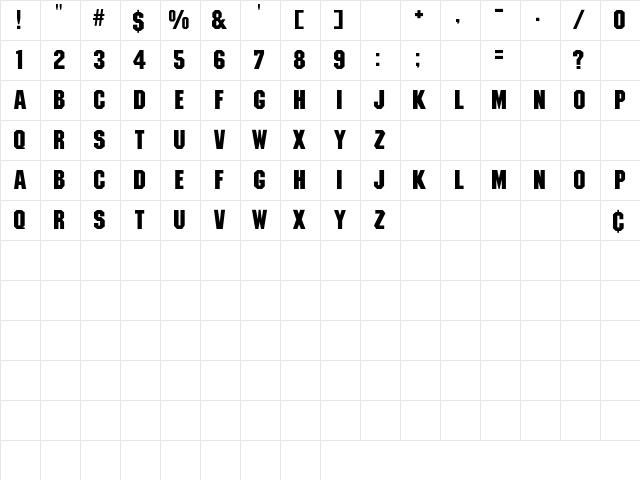
StrathmelliBld Regular
Design Context for StrathmelliBld
StrathmelliBld is a composed and adaptable typeface that performs quietly and consistently across a wide range of design contexts.
Pro Tip: Use StrathmelliBld in both headline and body roles to test its range before committing to a single application.